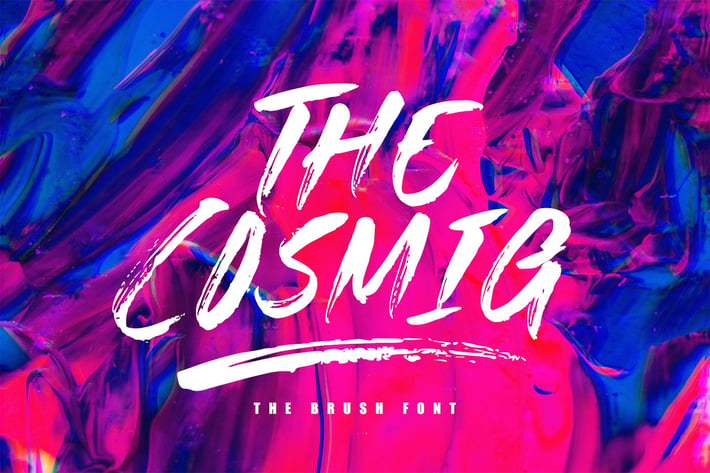
The Cosmig - Brush Font
Introducing The Cosmig - Brush Font. It comes with brush texture style which is perfect to make any design stand out! This font is perfect for branding, wedding invites, magazines, mugs, business cards, quotes, posters, and more.